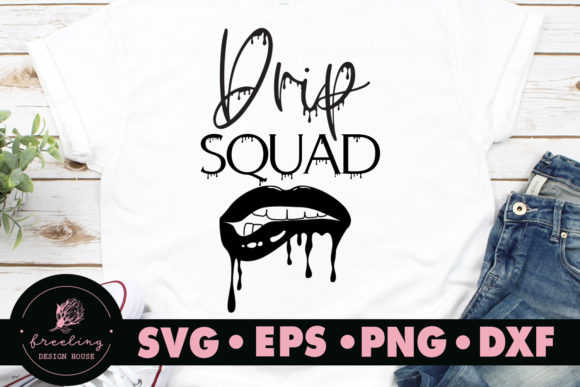
Kiss My Lips Font
db-ku.com - Script & Handwritten -- Kiss My Lips is a cool, modern and incredibly unique duo font (serif and script). Whether you’re looking for fonts for Instagram or calligraphy scripts for DIY projects, this font will turn any creative idea into a true piece of art!